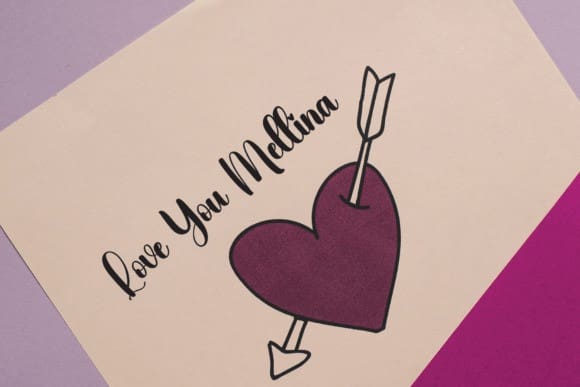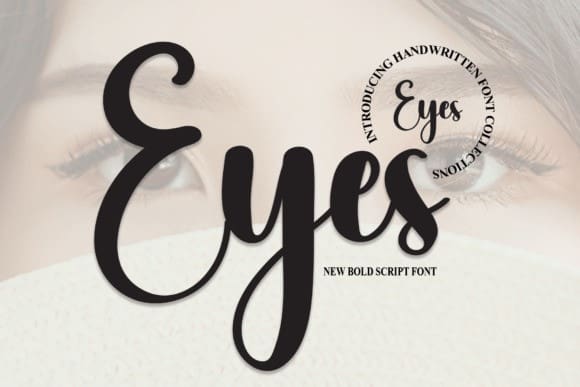
Eyes Script Font
Eyes Script Font, is a cool and casual handwritten font. Whether you’re using it for crafts, digital design, presentations, or making greeting cards, this font has the potential to become your favorite go-to font, no matter the occasion.